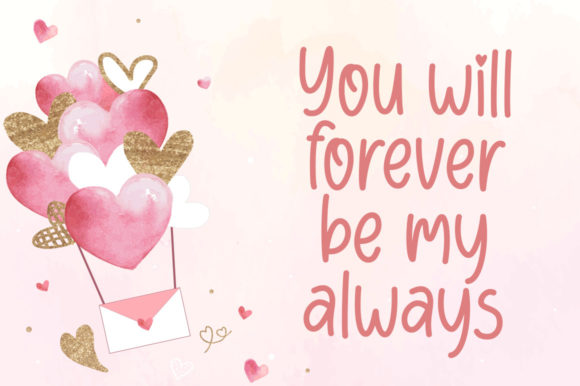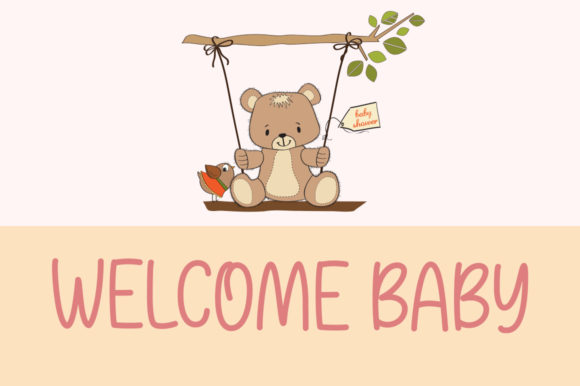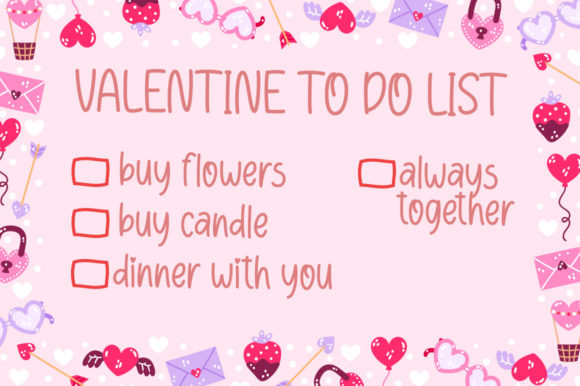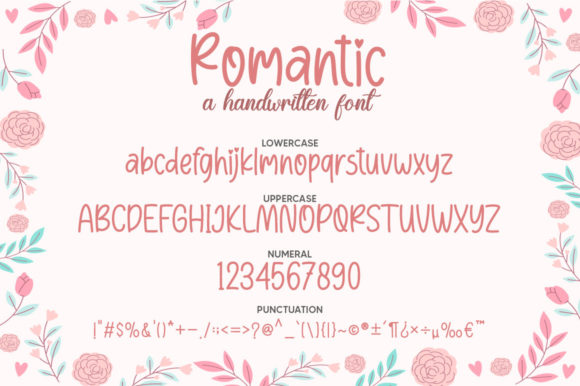
Romantic Font
About Romantic Font
Romantic is a simple and playful handwritten font. It can be used for various purposes such as logos, headings, t-shirts, letterheads, signage, labels, news, posters, badges and so much more.